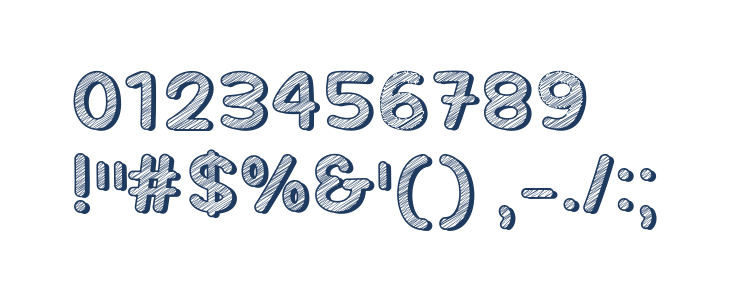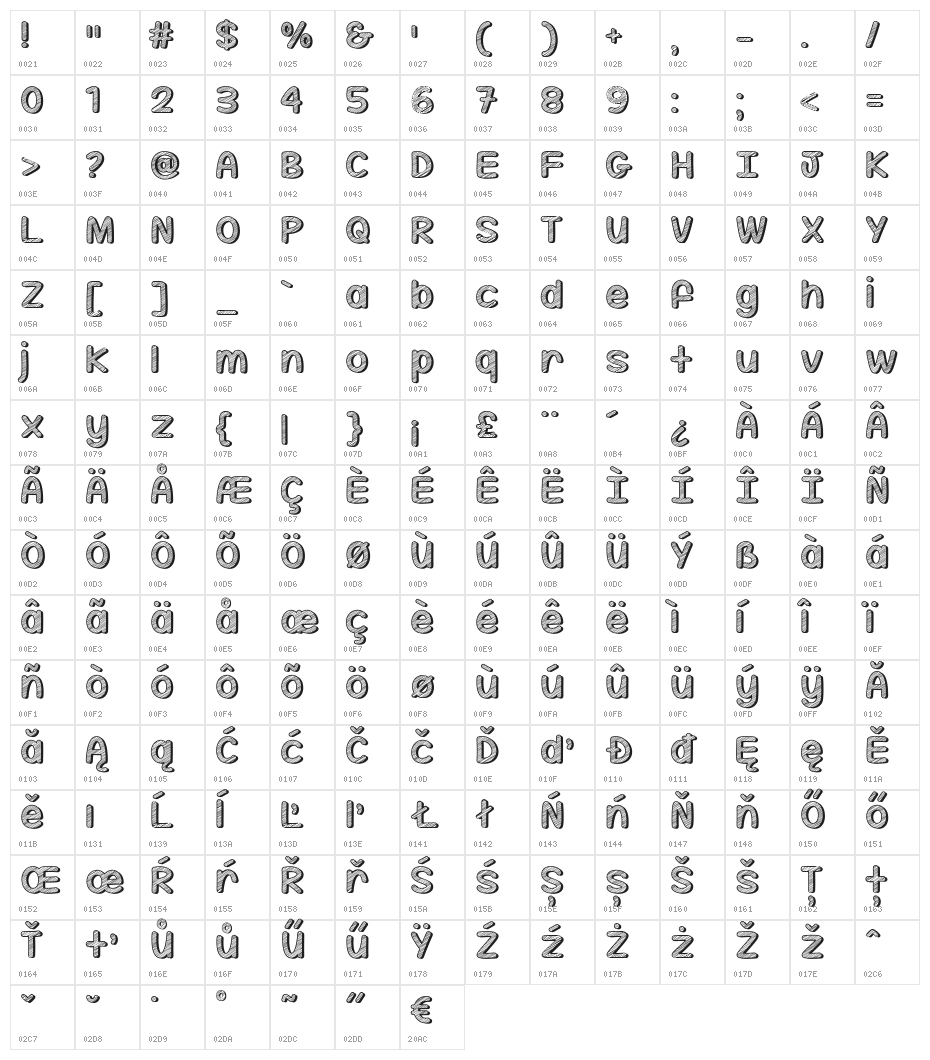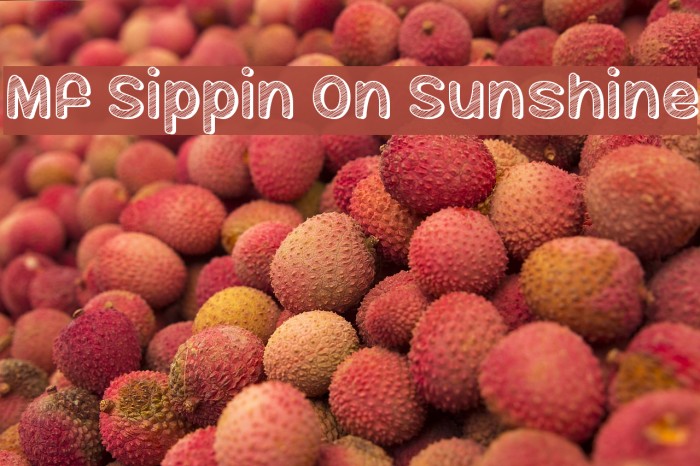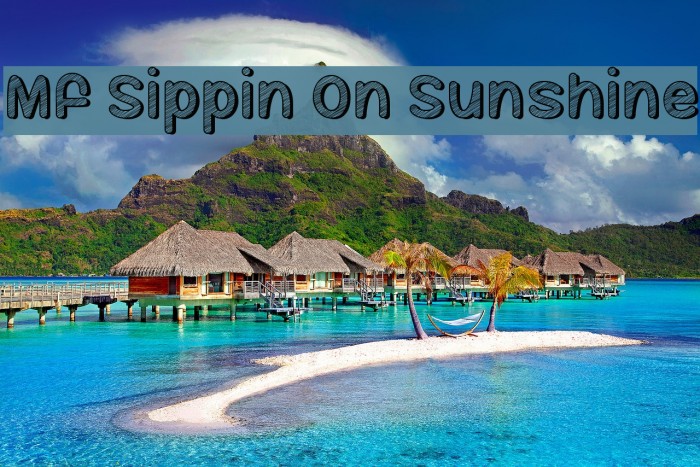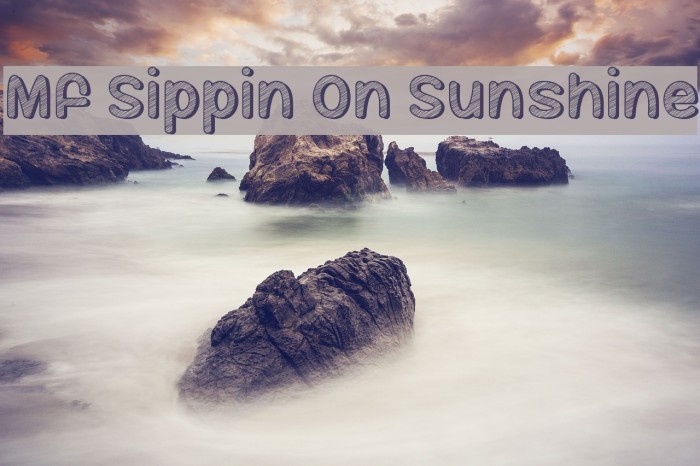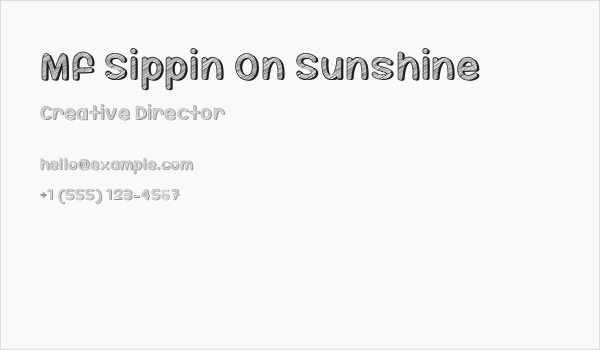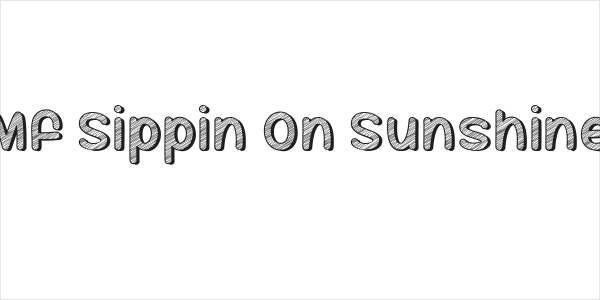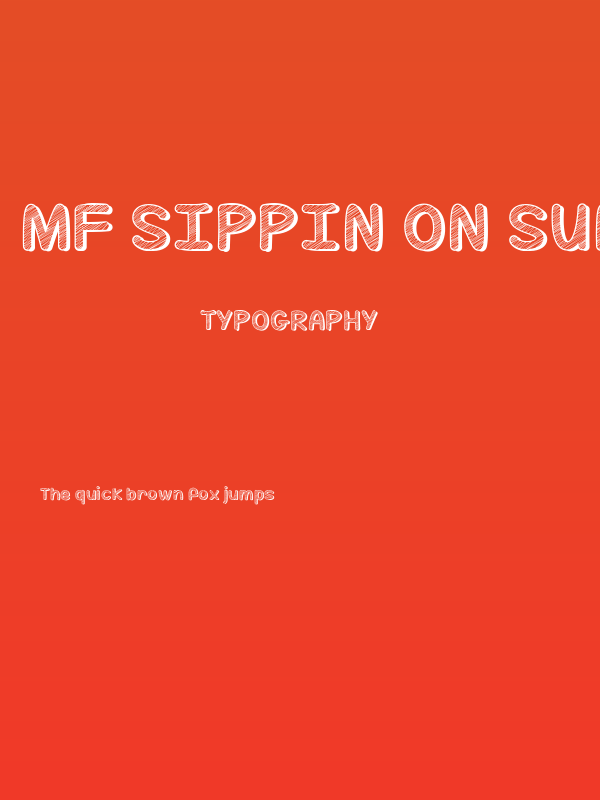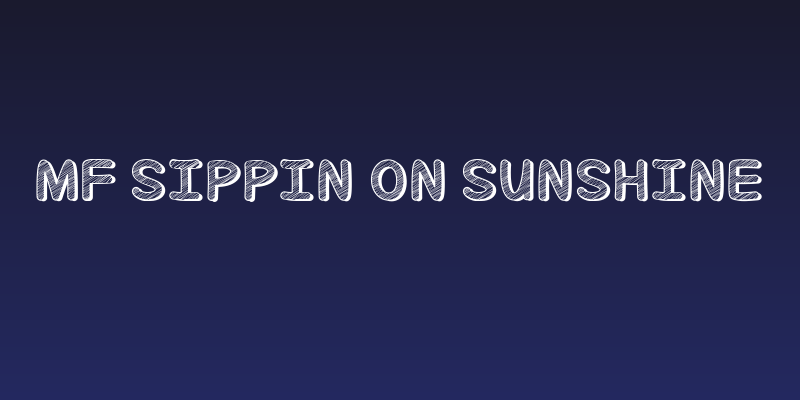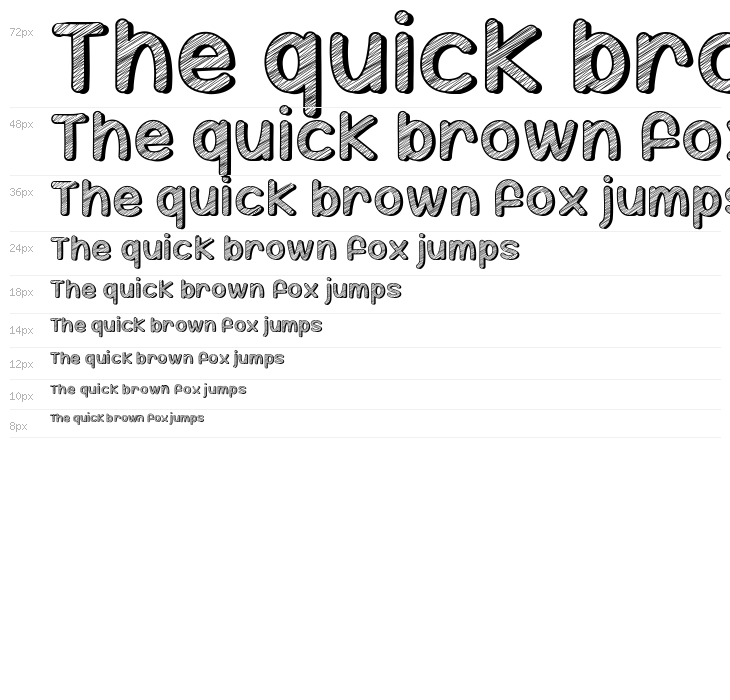
Mf Sippin On Sunshine Font
Mf Sippin On Sunshine Description
This font exudes a playful and energetic vibe, characterized by its bold, hand-drawn appearance. Each letter is filled with a textured, sketch-like pattern that adds depth and a sense of movement. The rounded edges and consistent stroke width give it a friendly and approachable feel. The uppercase and lowercase letters maintain a uniform style, while the numerals and special characters are crafted with the same attention to detail, ensuring a cohesive look across all text. Its unique design makes it stand out, perfect for projects that require a touch of creativity and fun.
| Proposed Projects | Ideal for children's books, playful branding, creative posters, and casual invitations. |